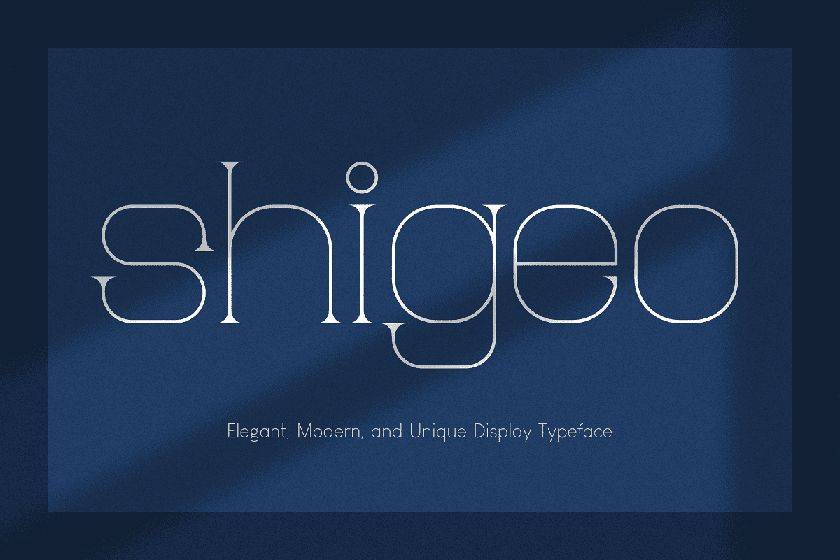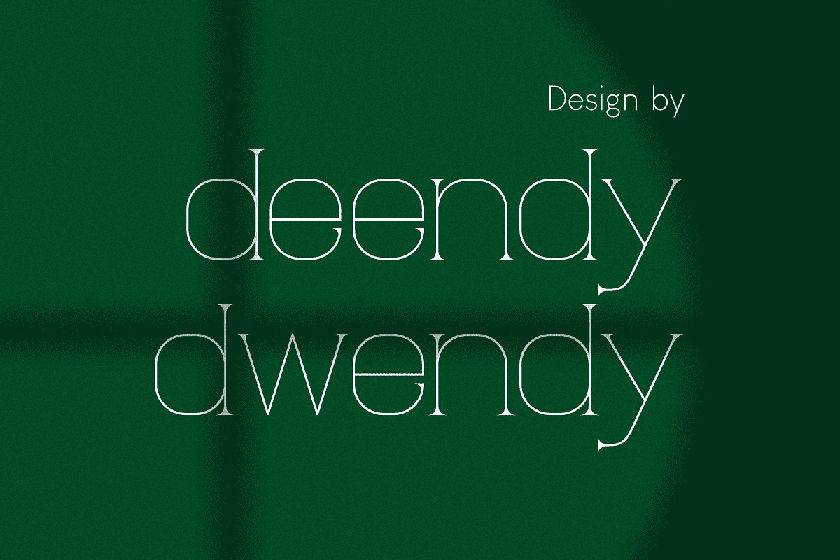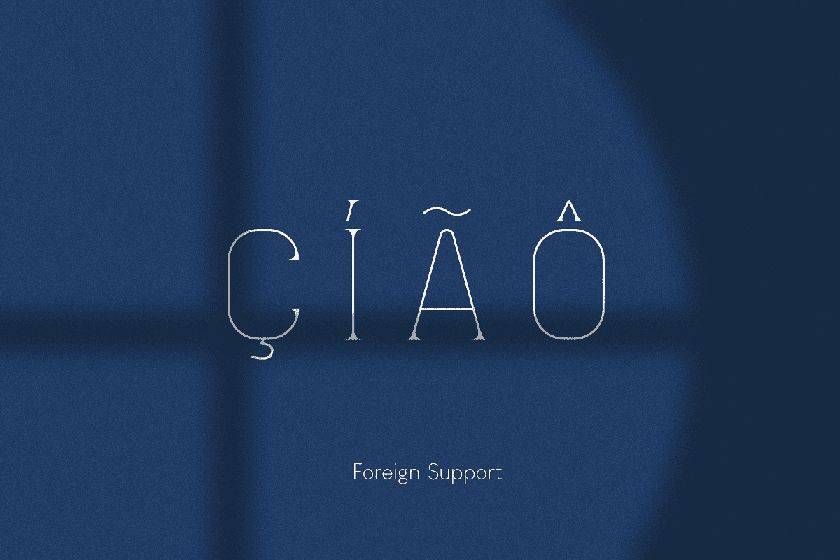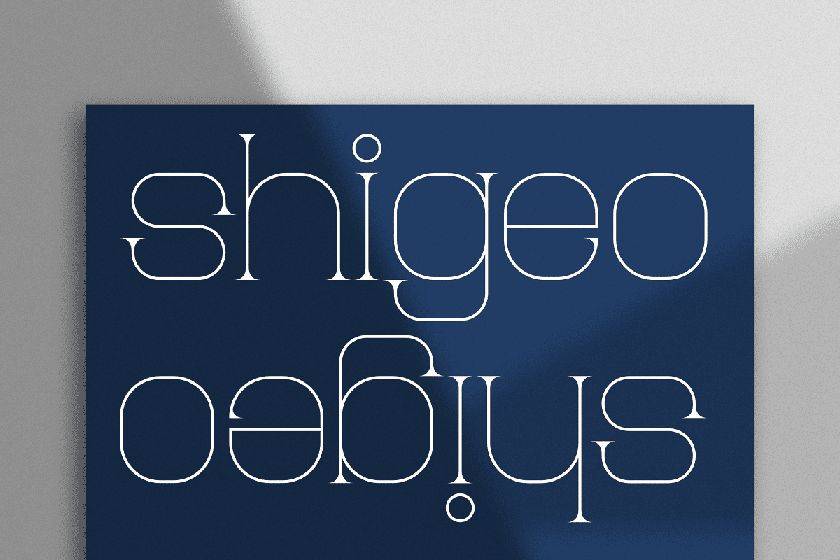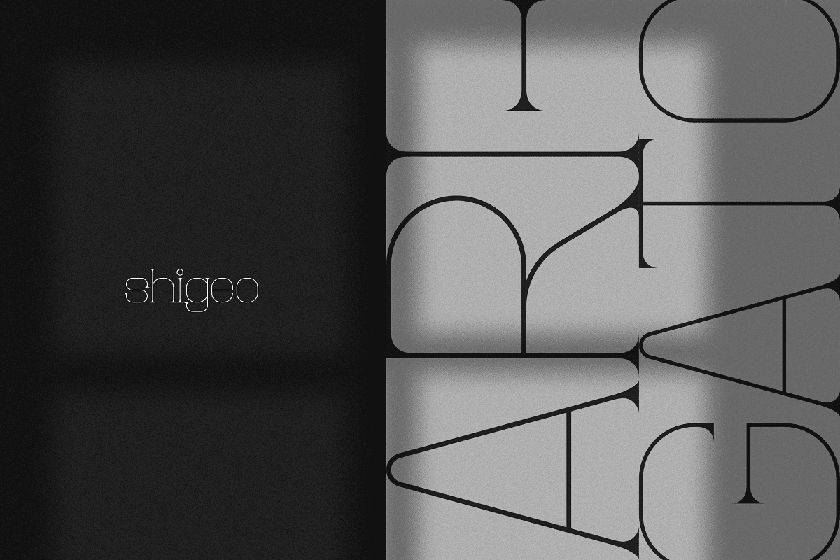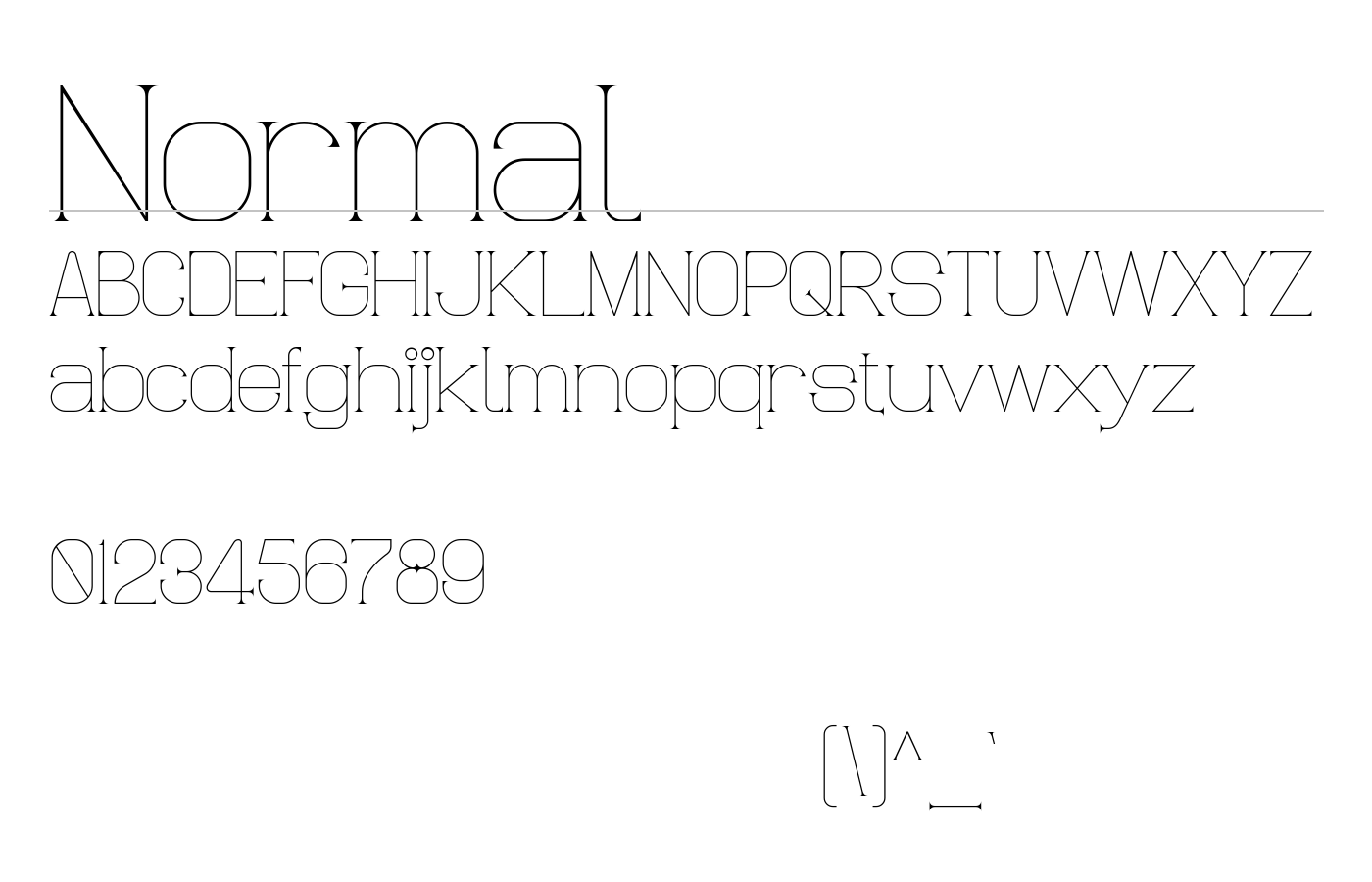
Shigeo Font is a delicate, modern serif typeface characterized by its ultra-thin strokes and elegant, high-contrast lines, giving it a refined and artistic feel. With its tall x-height and intricate details, it suits sophisticated designs, making it ideal for luxury branding, editorial headlines, and stylish logos where a graceful, contemporary look is desired.
Shigeo Font
About Shigeo Font
| Font family | Shigeo Font |
| Designer | Dendy Ramadhan |